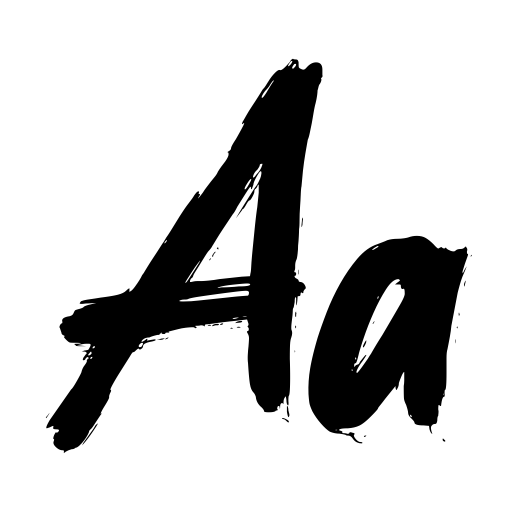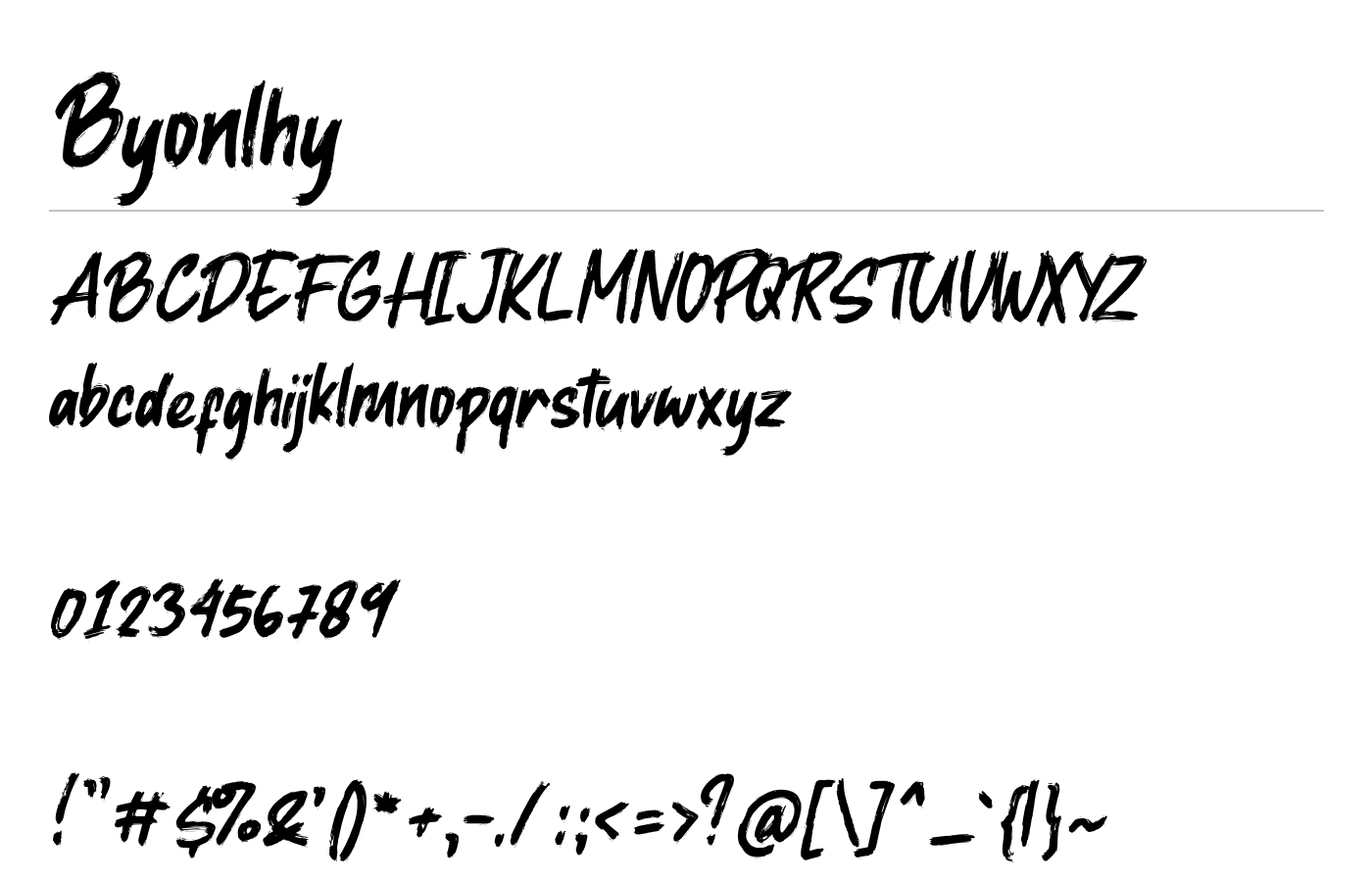
Byonlhy is a bold, textured script font that captures a dynamic, hand-painted feel with its rough, expressive strokes and casual letterforms. Its energetic style makes it ideal for creative branding, posters, and headlines that want to convey a playful yet edgy personality. This font works best where a unique, artistic touch is needed, adding a sense of movement and spontaneity to your design.
Byonlhy Font
About Byonlhy Font
| Font family | Byonlhy Font |